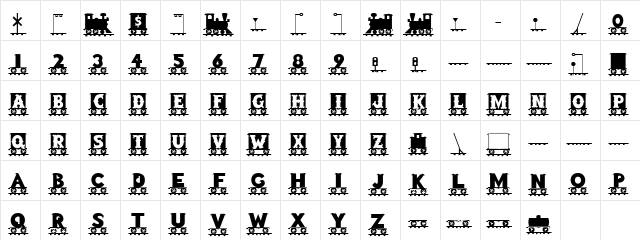
Dickeberta Regular
Design Context for Dickeberta Typeface
Dickeberta is a composed and adaptable typeface that performs quietly and consistently across a wide range of design contexts.